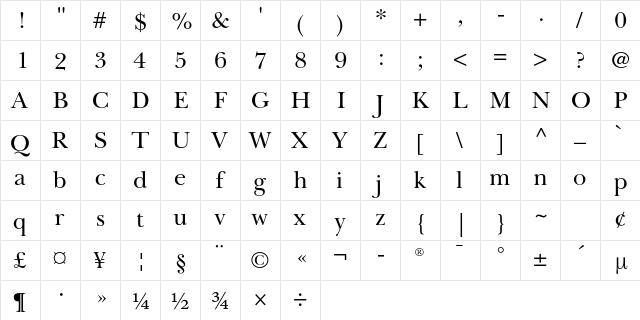
Baskerville Cyrillic LT Std Upright
| Designer | Linotype Staff |
Design Context for Baskerville Cyrillic LT Std Typeface
Baskerville Cyrillic LT Std takes a measured approach to typography — its balanced proportions and neutral character make it a reliable workhorse for both digital and print work. The delicate stroke weight brings airiness and refinement to layouts.